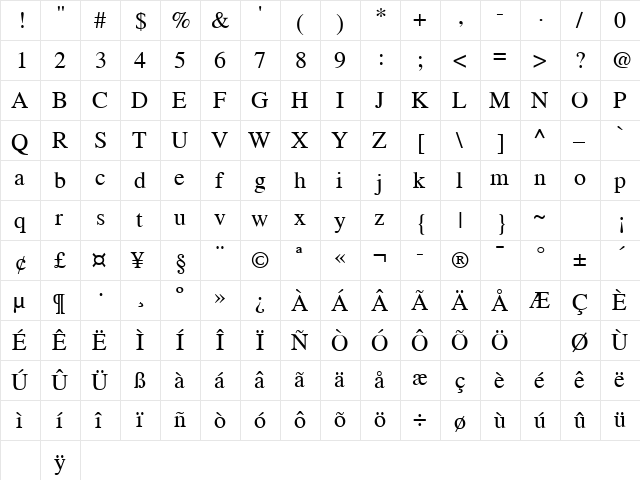
Giel Lite Regular Lite
Design Context for Giel Lite Typeface
Giel Lite offers clean, dependable letterforms without strong stylistic allegiance, making it a practical choice for designers who need flexibility.
Pro Tip: Use Giel Lite in both headline and body roles to test its range before committing to a single application.